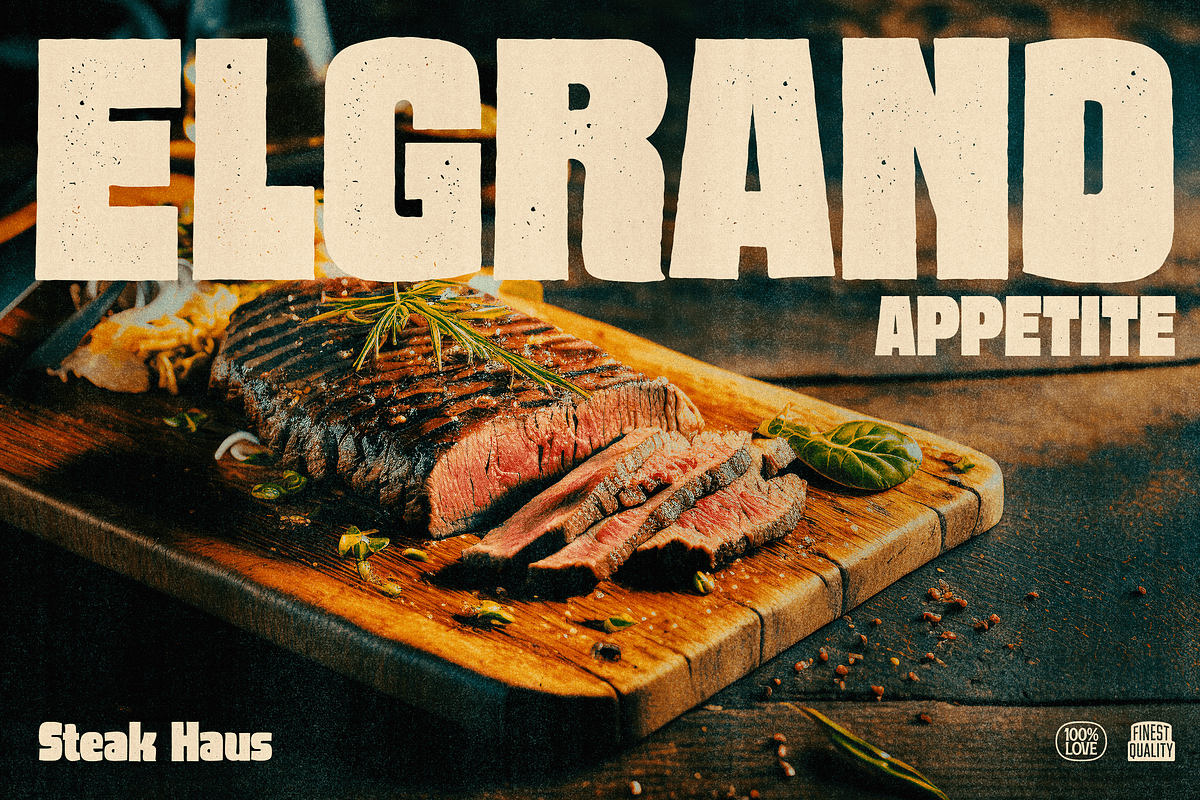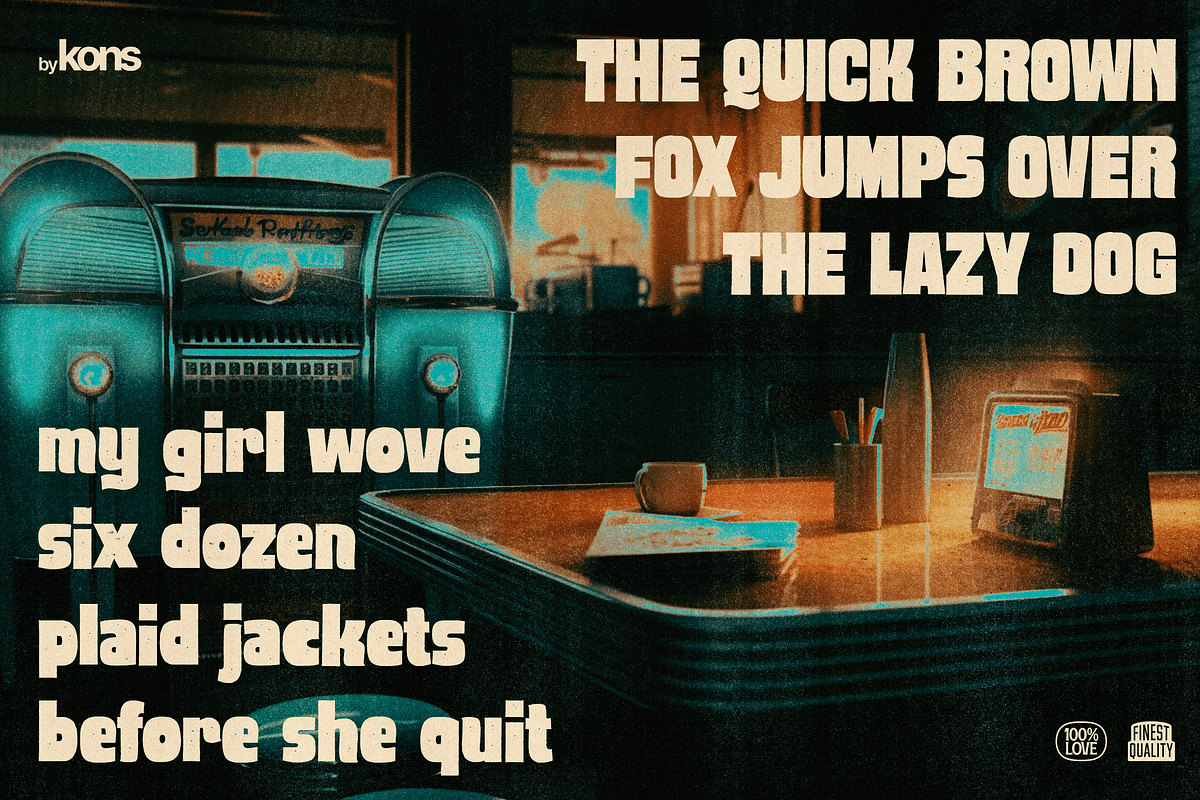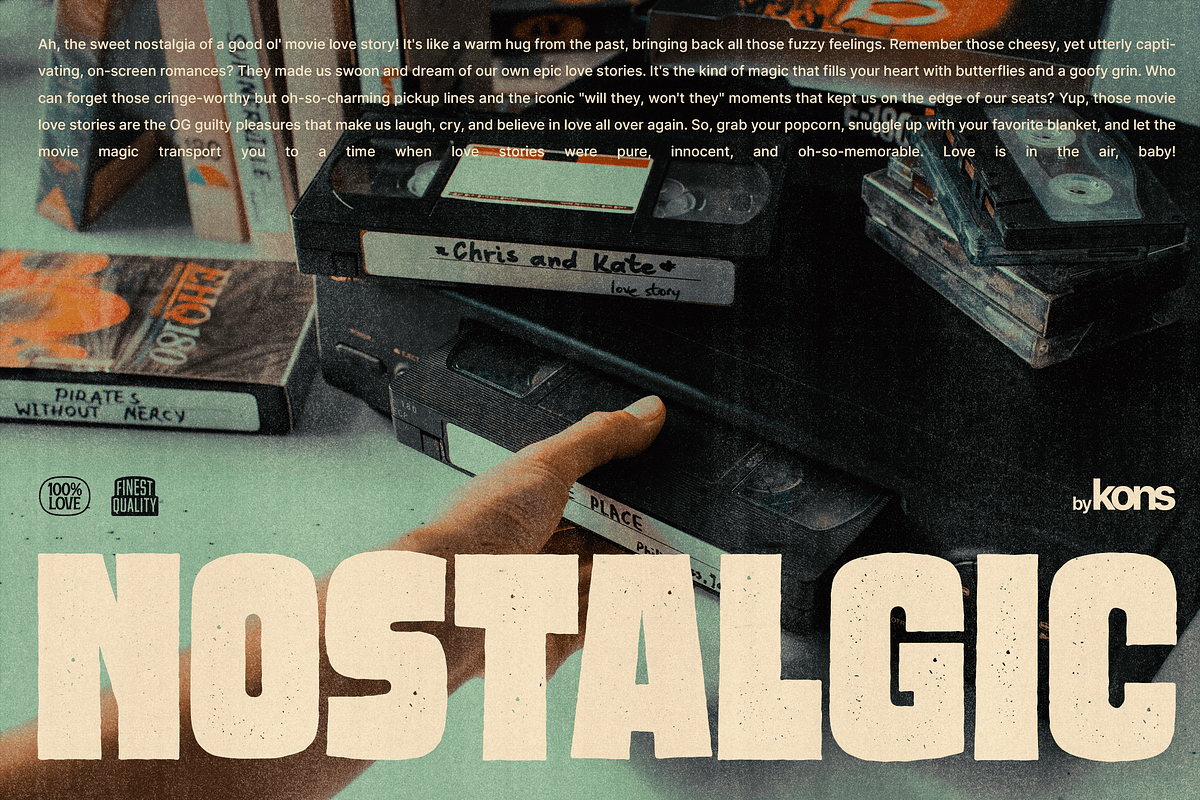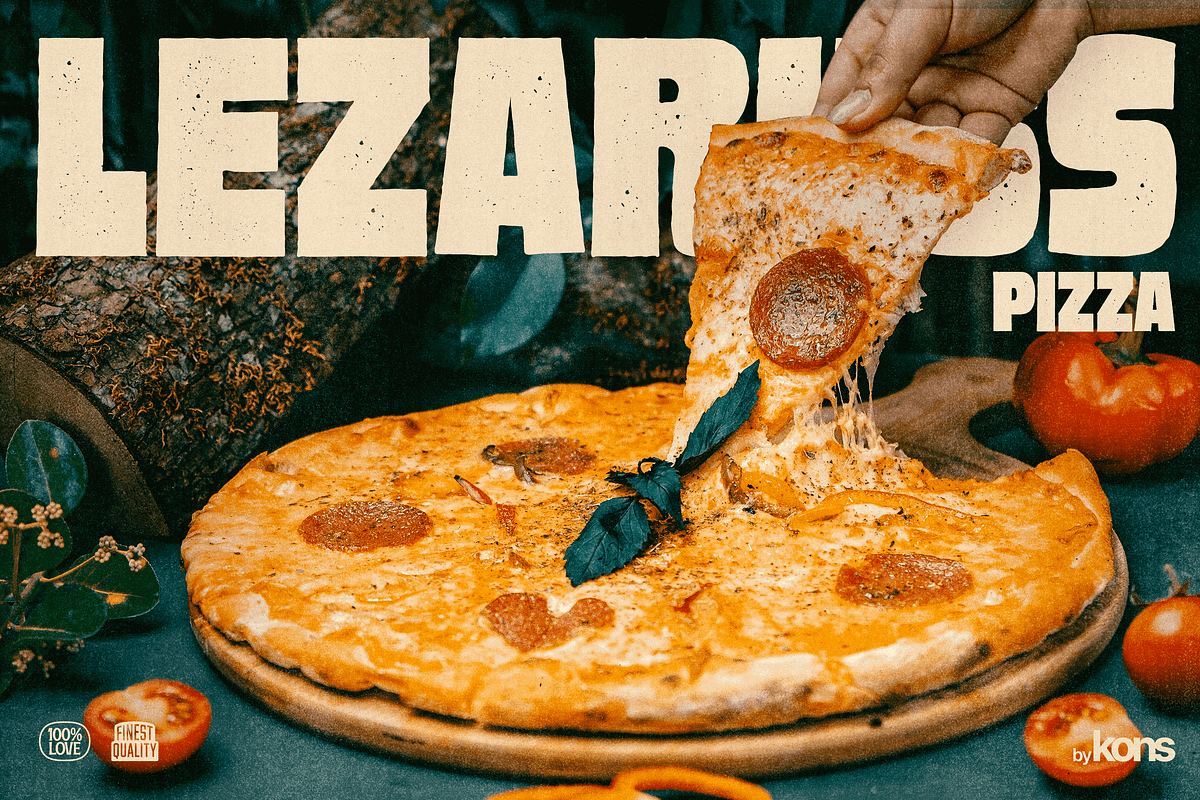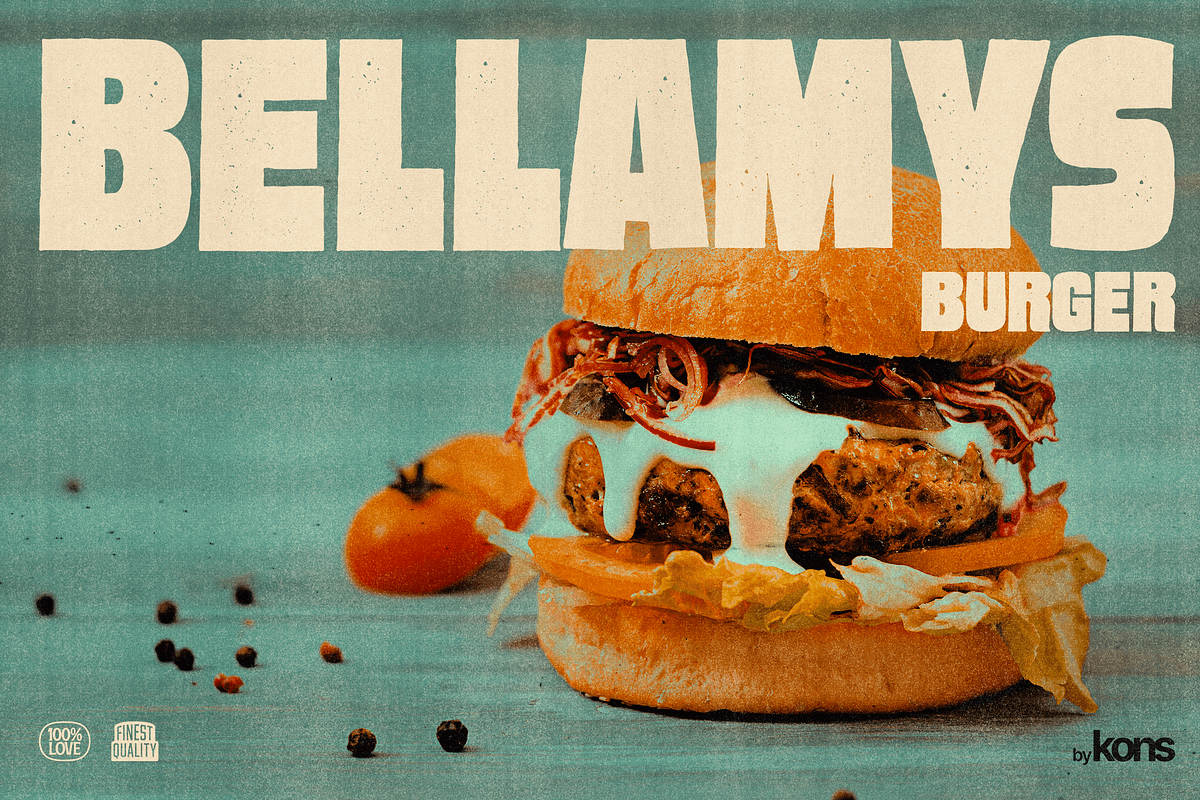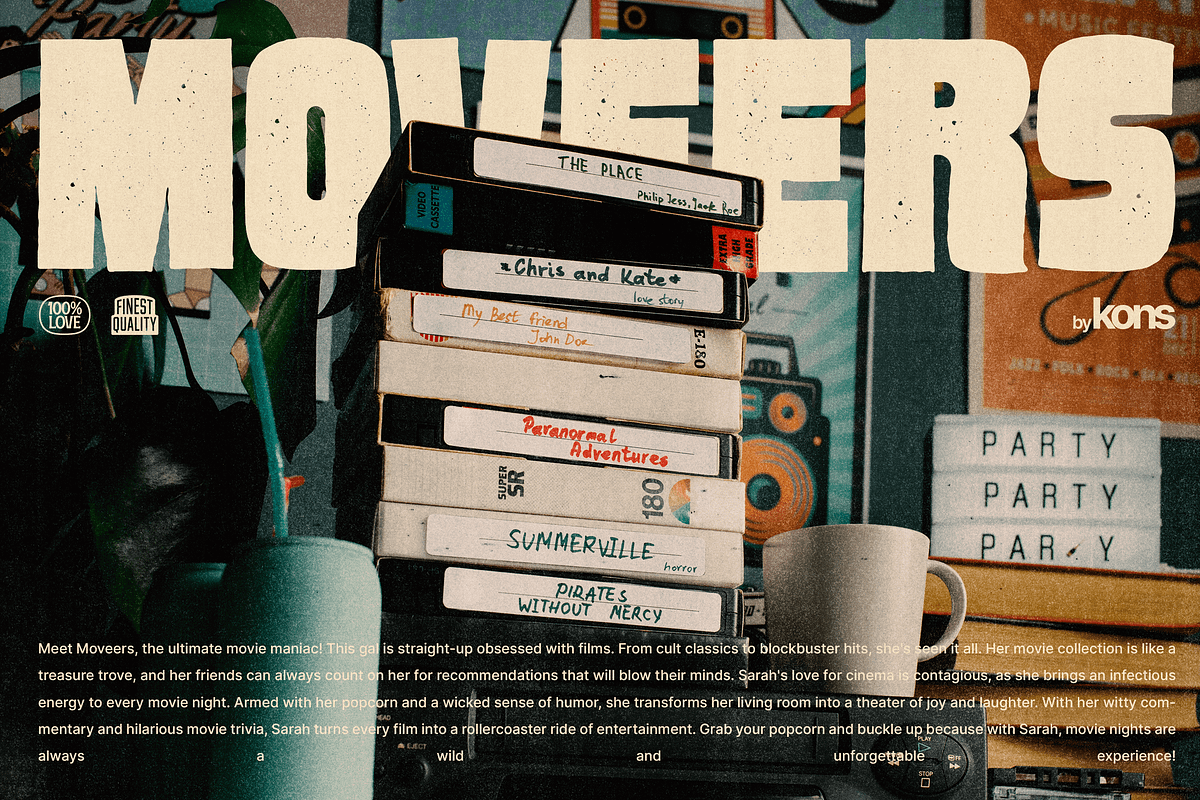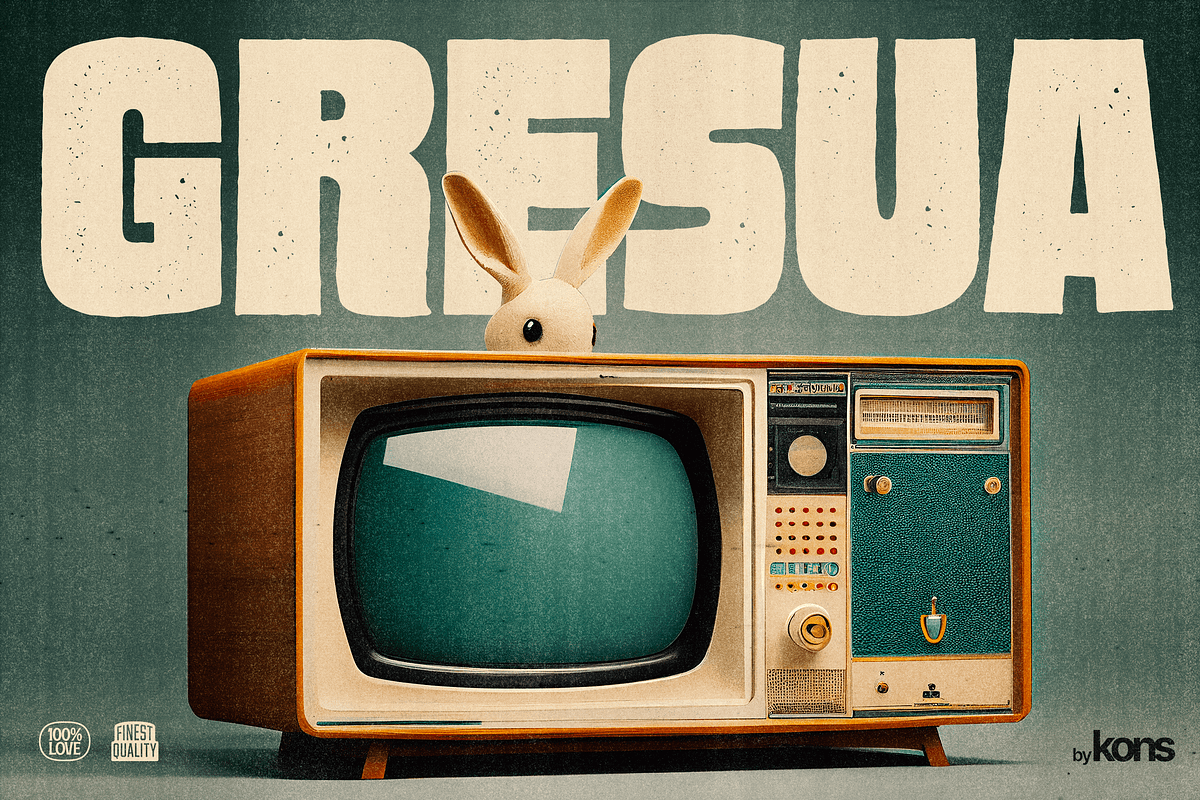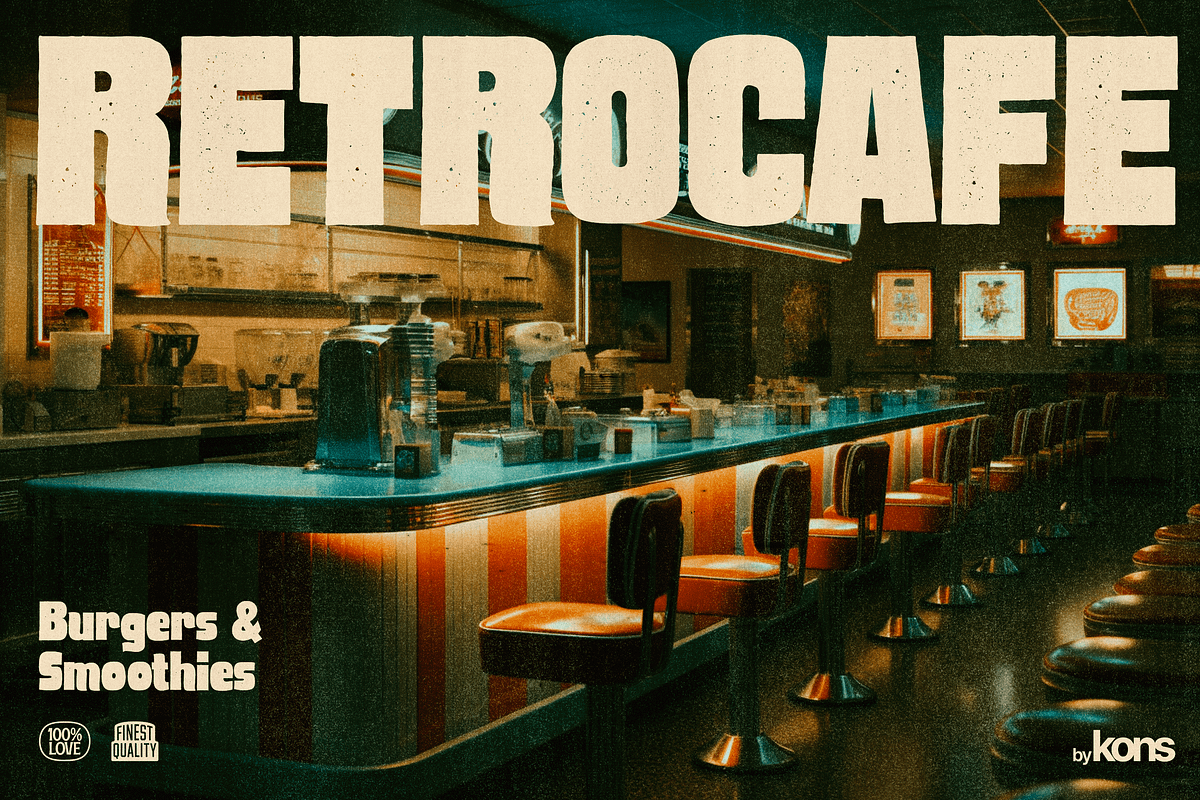
Gresua - Organic Bold Fonts
Introducing Gresua Fonts - Unleash the Power of Nostalgia and Captivate Pop Culture, Lifestyle, and Food and Beverages Branding!
Looking to infuse your brand with a burst of retro charm and a dash of pop culture pizzazz? Say hello to our Gresua Fonts! Designed to make your brand stand out in the realms of pop culture, lifestyle, and food and beverage branding, these fonts are an absolute game-changer.
Gresua transports you to the golden era of the past, evoking a sense of nostalgia that resonates with pop culture enthusiasts. Seamlessly blending boldness and authenticity, they captivate the hearts of your audience, adding a unique and irresistible touch to your brand identity.
In the ever-evolving world of pop culture, lifestyle, and food and beverage branding, it's essential to stay ahead of the curve. Our Gresua Fonts combine vintage aesthetics with a contemporary twist, allowing your brand to shine as a trendsetter. Embrace the bold and unexpected, and watch as your brand becomes the talk of the town.
Are you ready to take your brand on an unforgettable journey through the realms of pop culture, lifestyle, and food and beverage branding? Embrace the captivating allure of our Gresua Fonts today and unleash a world of endless possibilities!